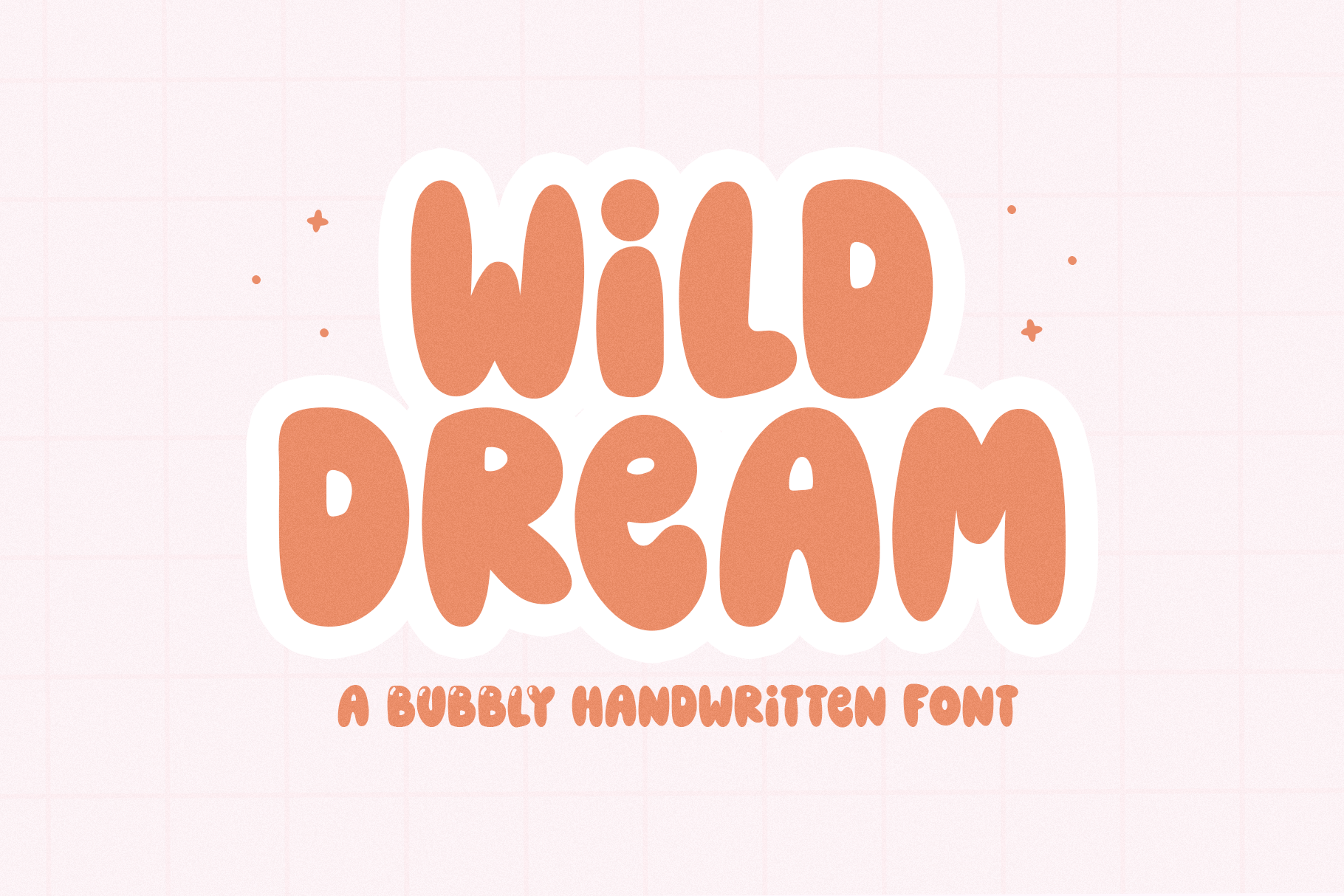
Wild Dream | Bubbly Handwritten Font
Wild Dream is a bubbly font with bouncy hand-drawn letters.
This font is perfect for creating retro shirt designs, stickers, phone cases, instagram quotes, branding, logos and more!